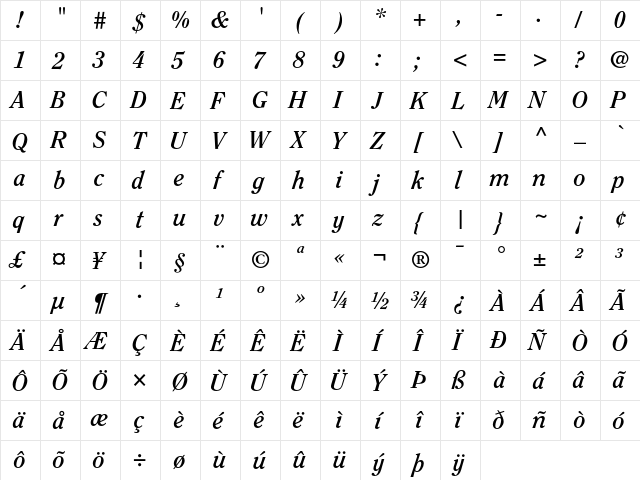
Clearface Regular Font Preview
Clearface Regular
Design Context for Clearface Typeface
Clearface takes a measured approach to typography — its balanced proportions and neutral character make it a reliable workhorse for both digital and print work.